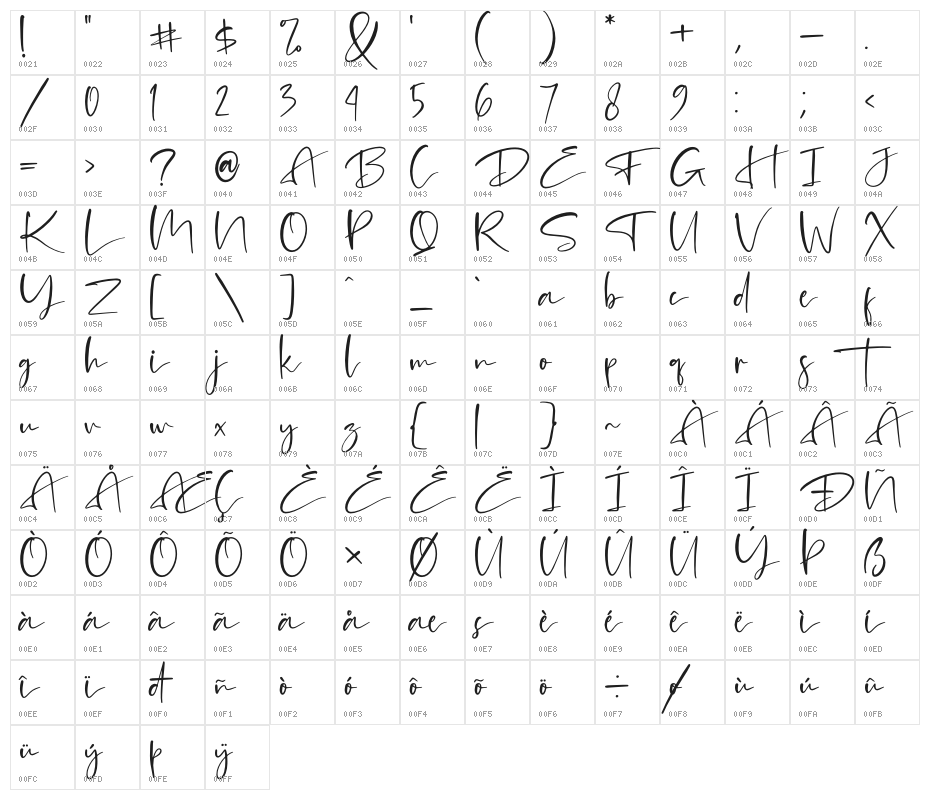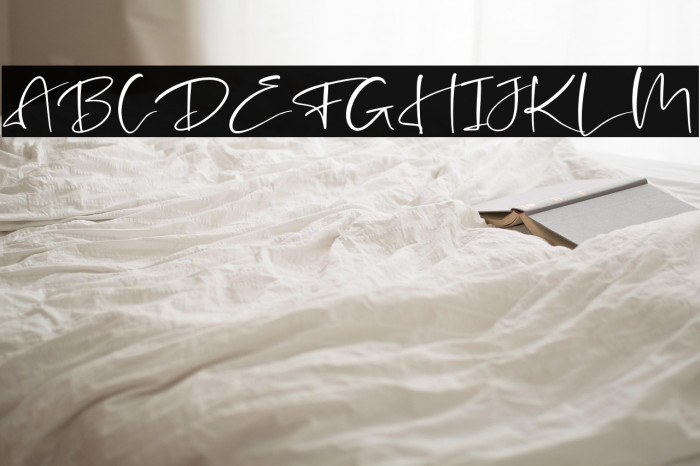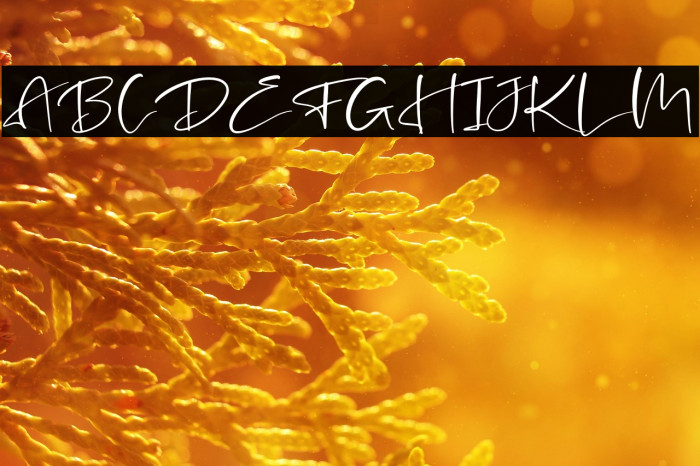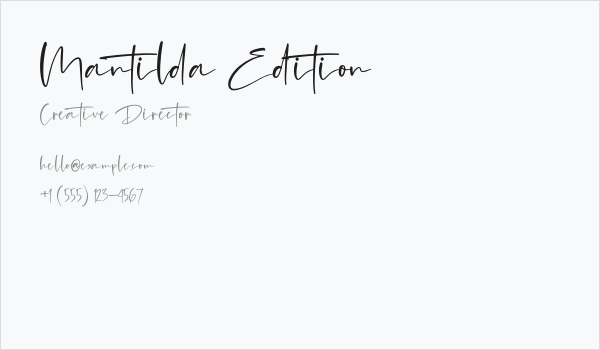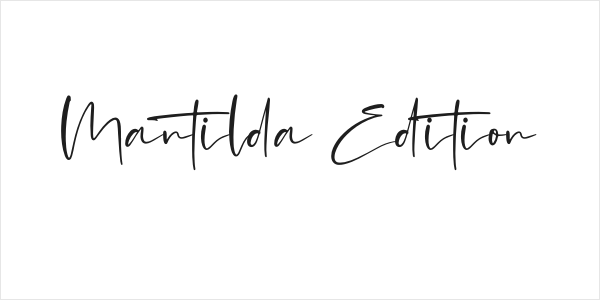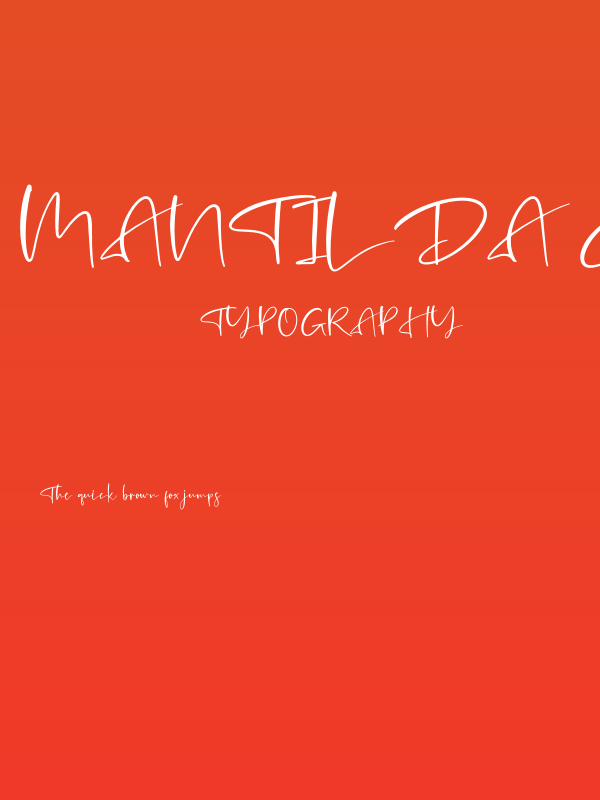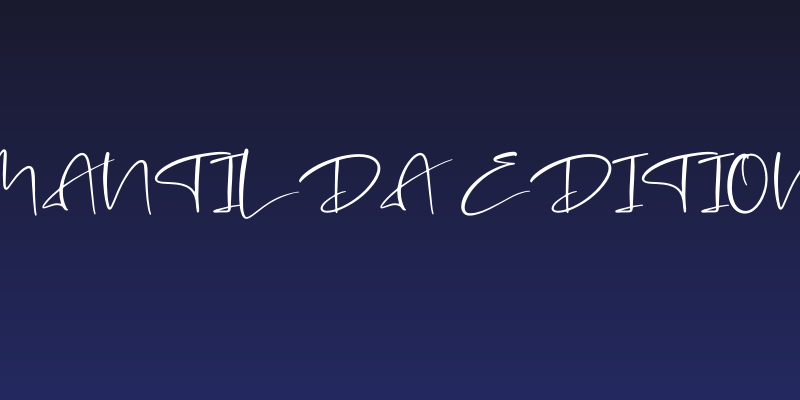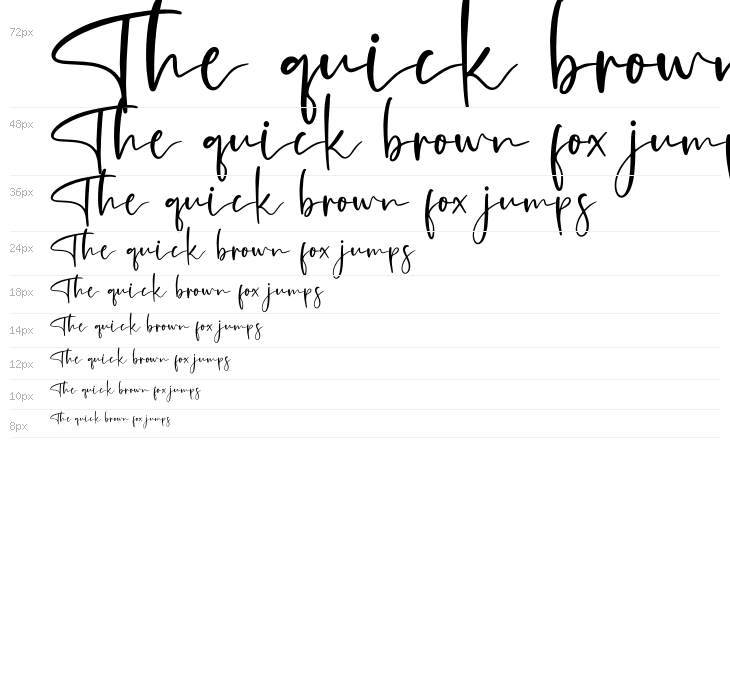
Mantilda Edition Font
Mantilda Edition Description
This font features a dynamic and expressive handwritten style, characterized by its fluid and organic strokes. The uppercase letters are bold and slightly irregular, giving a sense of spontaneity and creativity. The lowercase letters maintain a consistent flow with elegant loops and curves, adding a touch of sophistication. Numbers and special characters are crafted with the same lively energy, ensuring a cohesive look across all elements. The overall design is both playful and stylish, making it suitable for projects that require a personal and artistic touch.